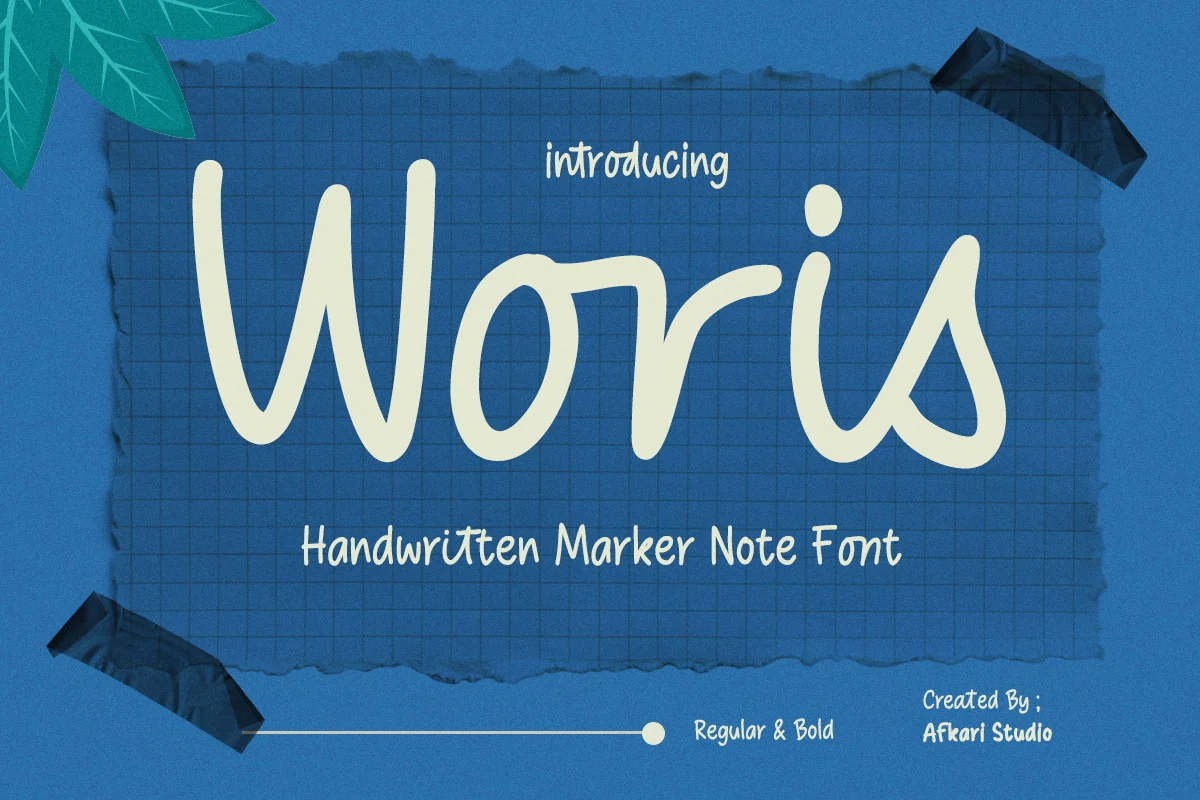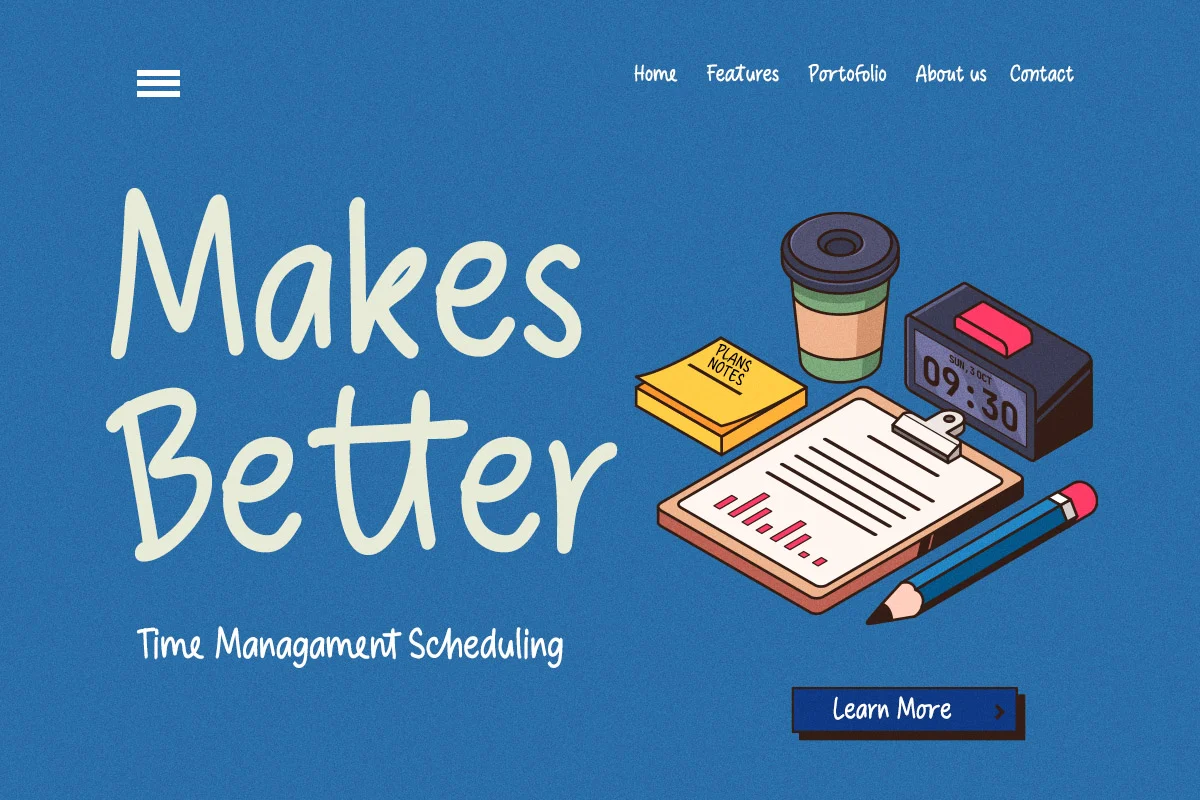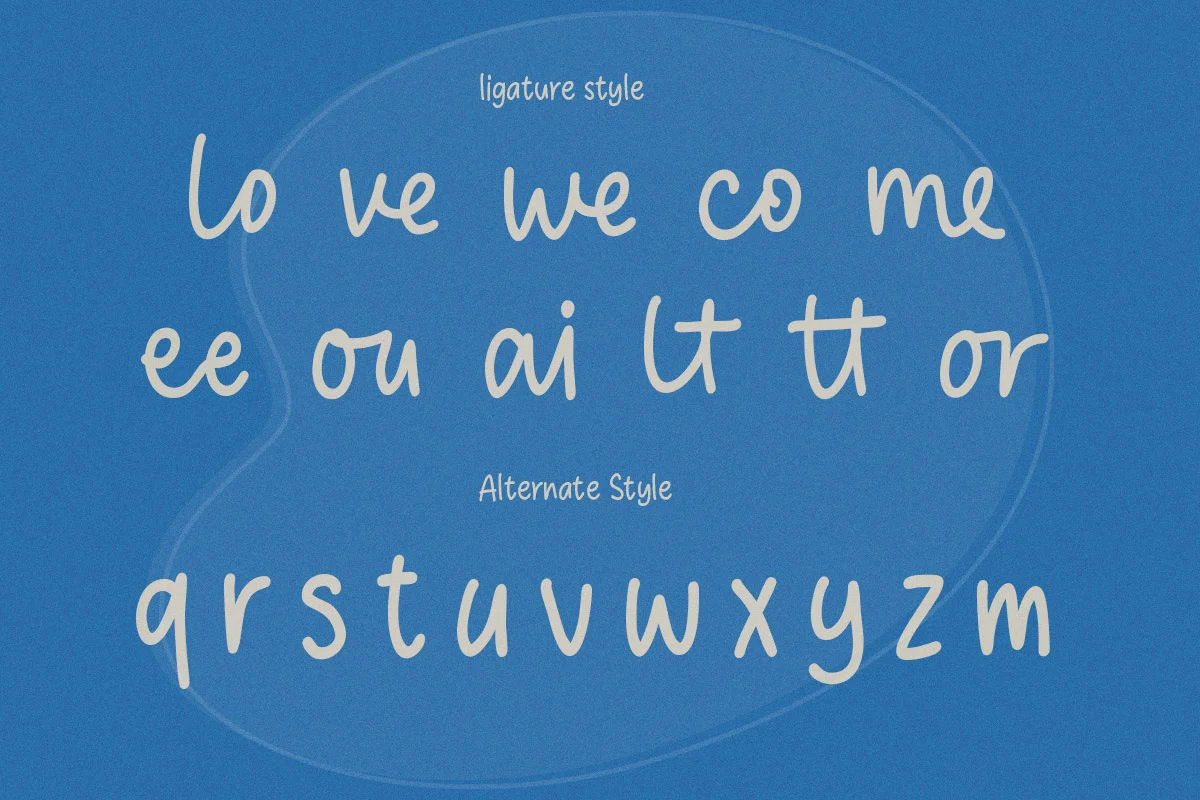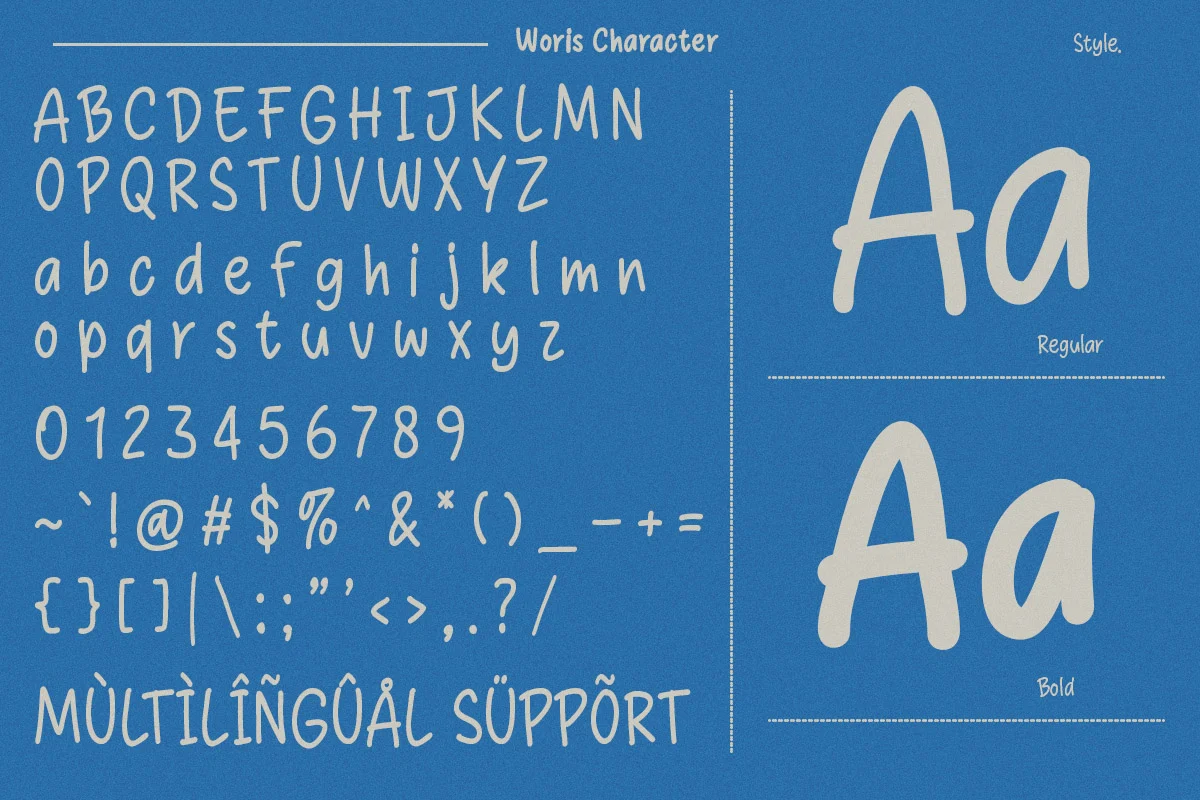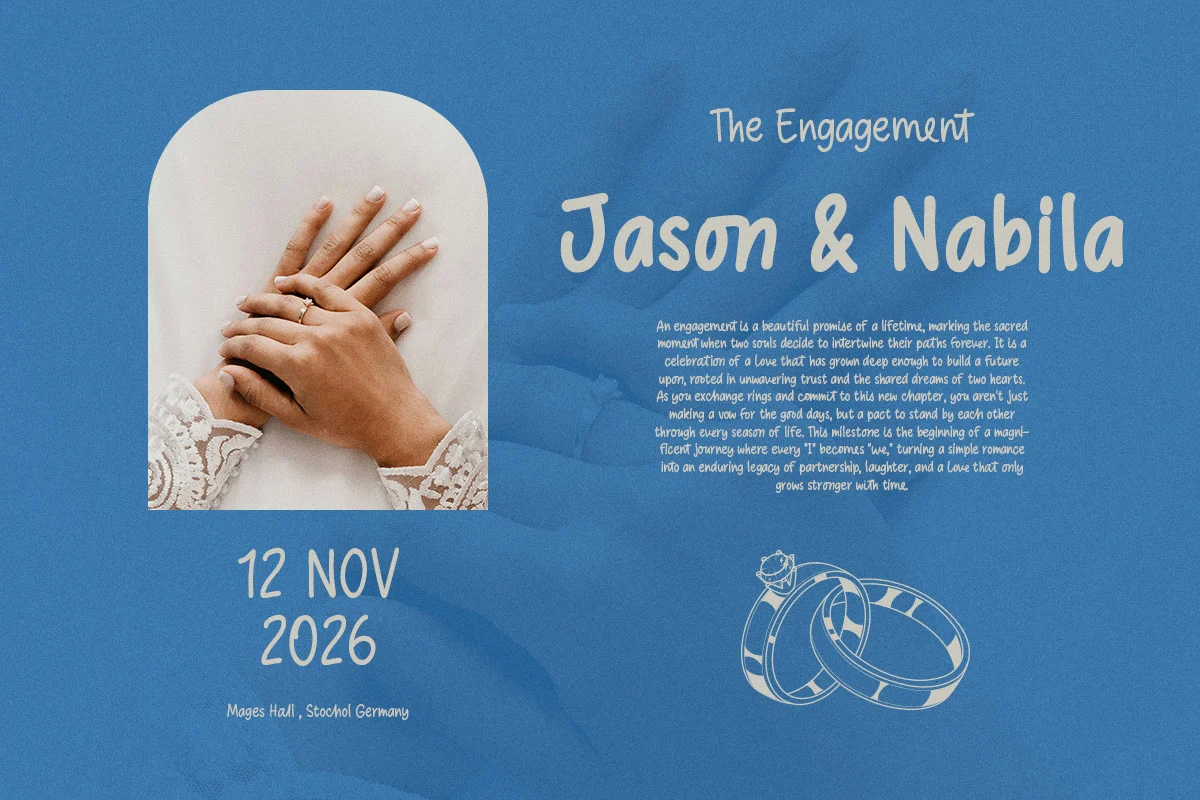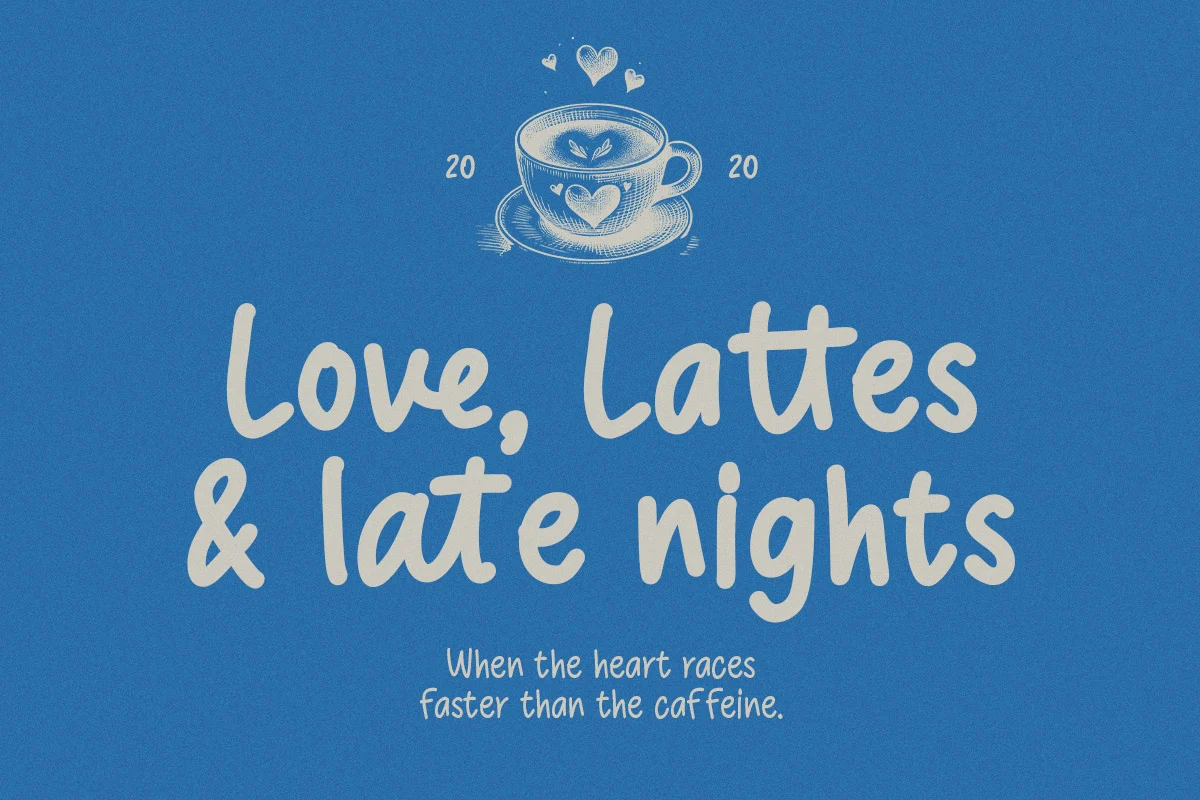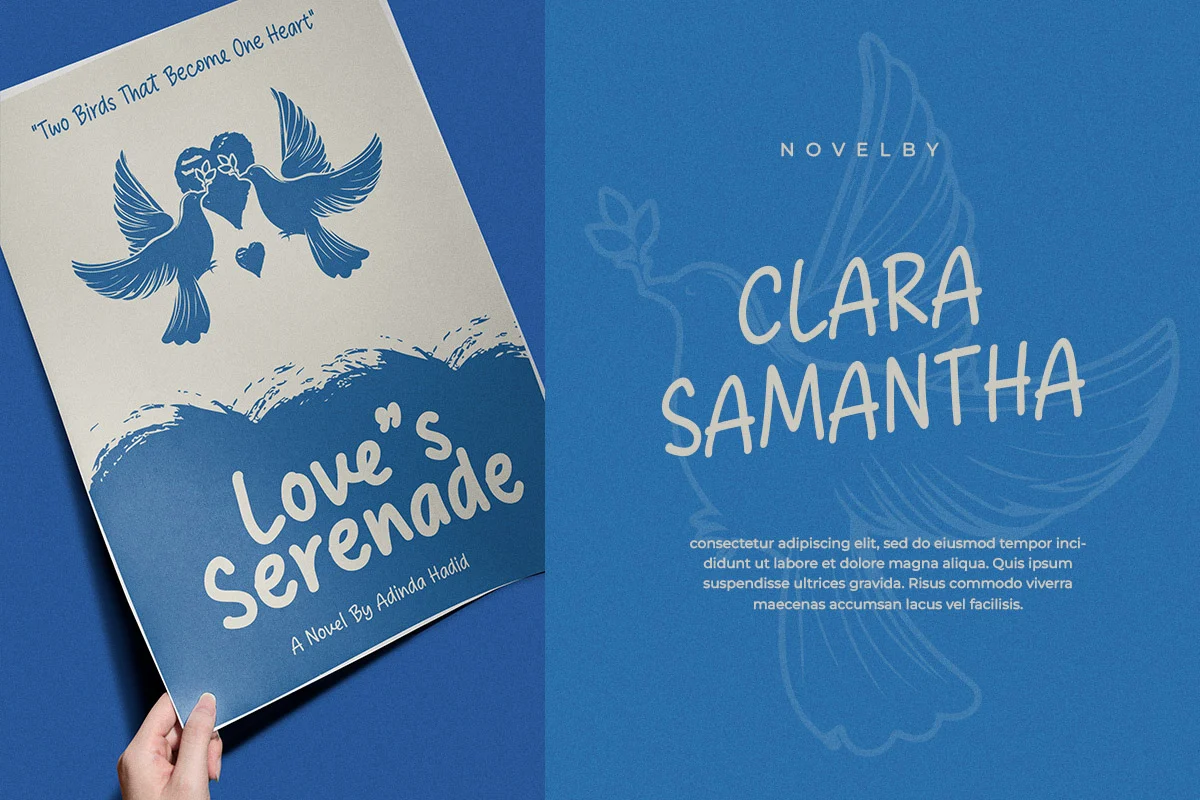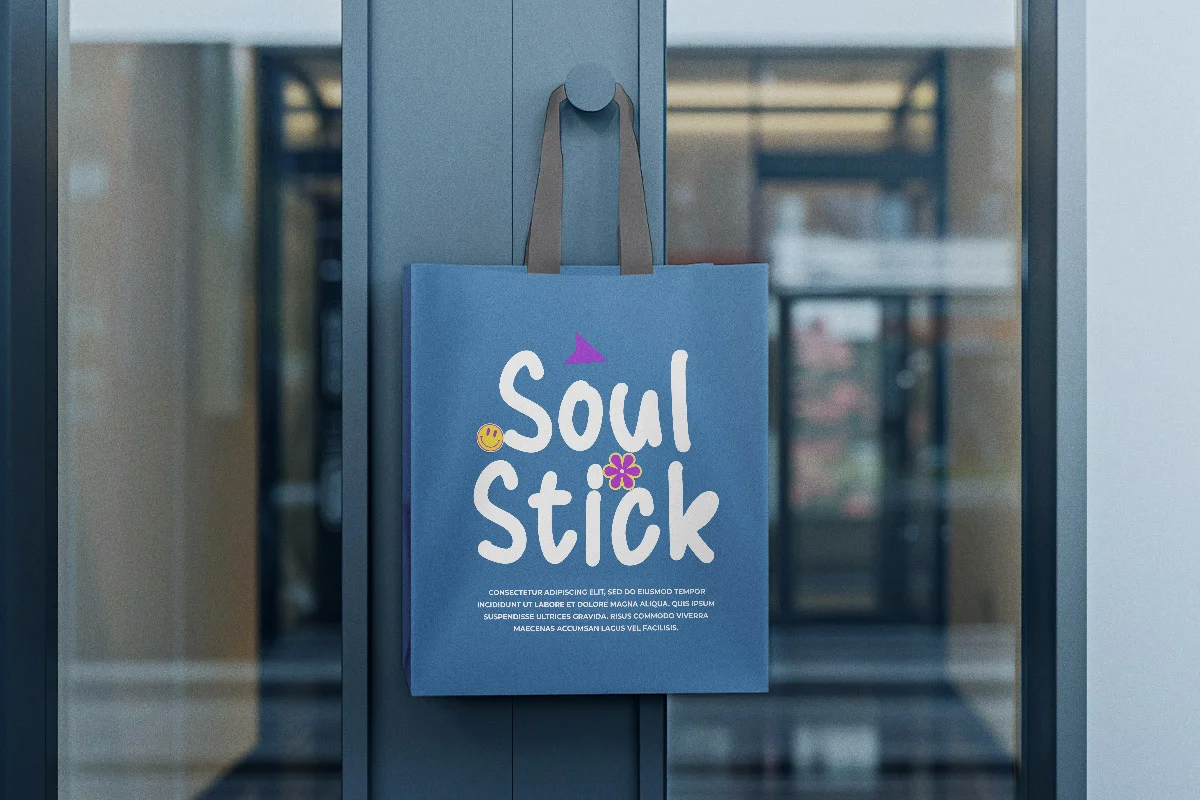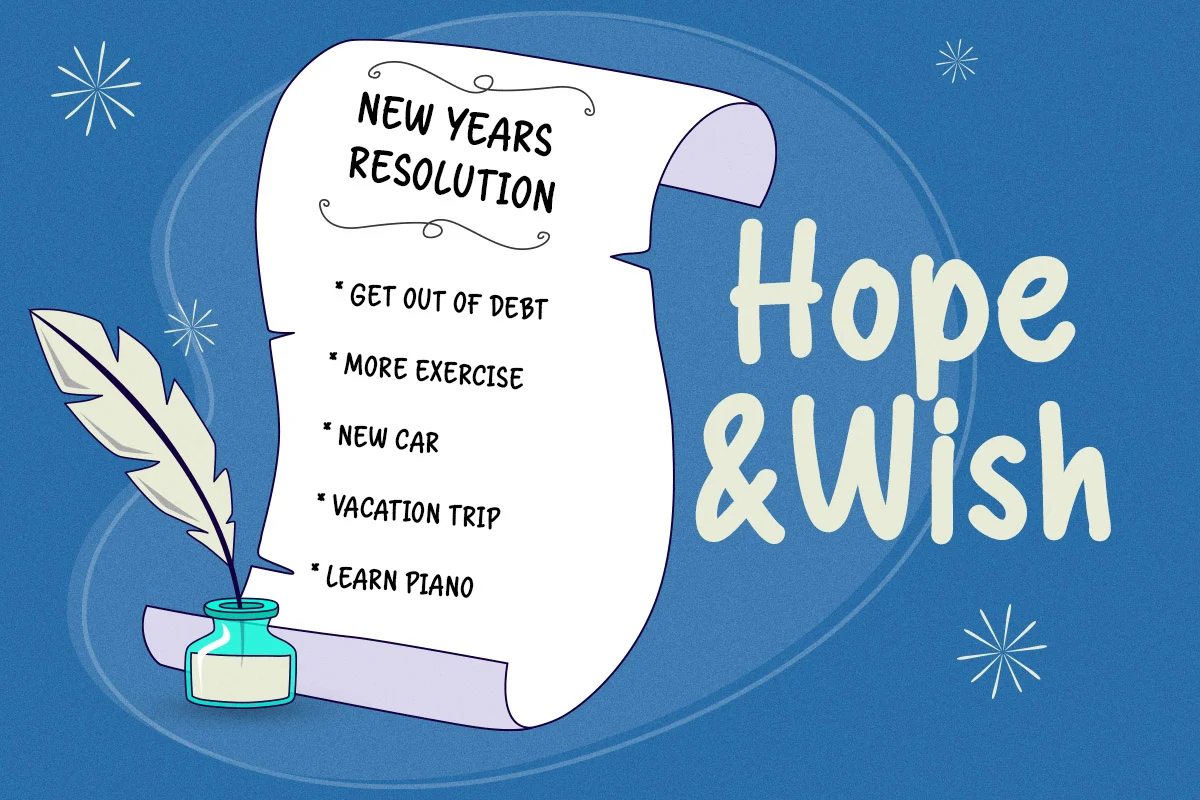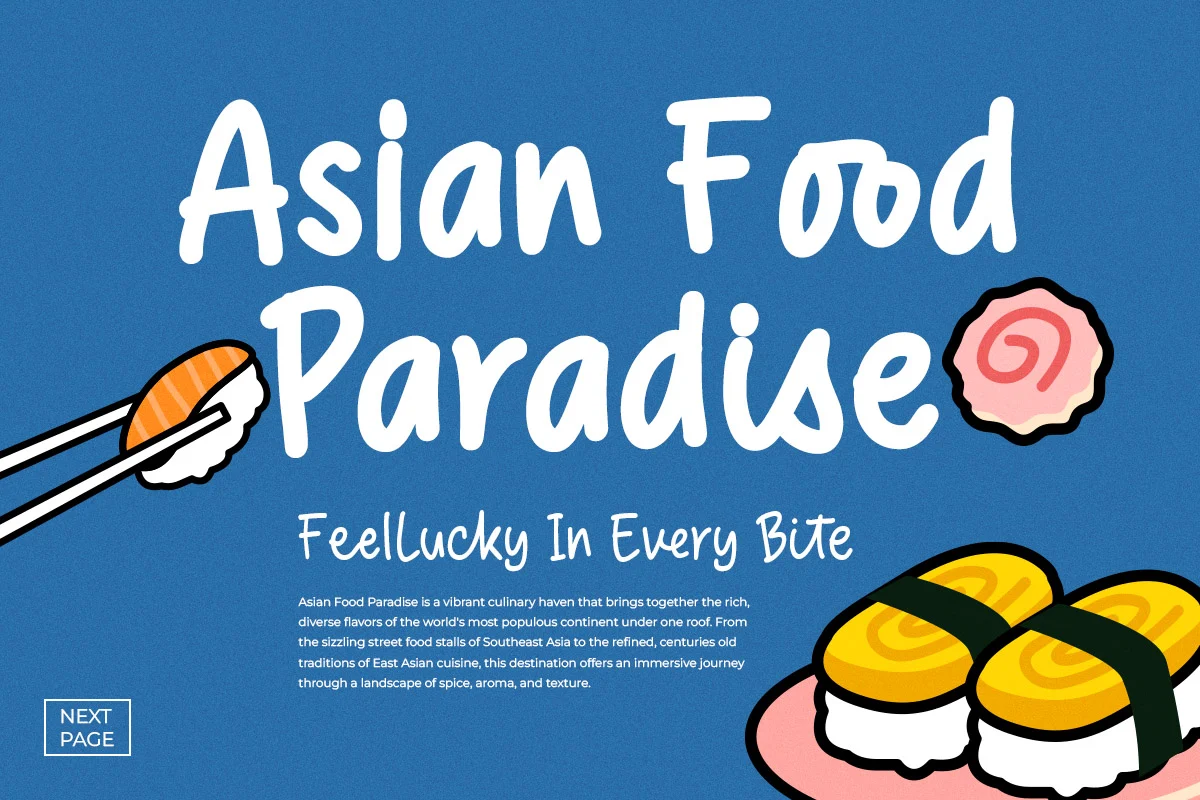
Woris is a natural handwritten marker note font designed to capture the raw, expressive feel of quick notes and real handwriting. With its smooth strokes, slightly rough edges, and organic flow, Woris brings a warm and personal touch to any design.
Inspired by everyday writing using marker pens, this font delivers an authentic and relaxed style that feels both modern and approachable. Its imperfect yet balanced letterforms create a visually engaging look while maintaining excellent readability.
Woris is perfect for creative projects that need a human touch—whether it’s social media content, branding, posters, or printed materials. The casual and friendly character of this font makes it highly versatile for both digital and print use.
Highlighted Features:
- Complete set of uppercase and lowercase letters, numerals, and punctuation
- Alternates and Ligatures Style
- Authentic handwritten marker style with natural stroke texture
- Smooth, expressive, and easy-to-read letterforms
- Multilingual support includes characters like ä, ö, ü, Ä, Ö, Ü, ß, ¿, and ¡
Add a natural and expressive touch to your designs with Woris—a handwritten marker font that brings warmth, personality, and authenticity to every project. Start creating designs that feel truly human and engaging today.